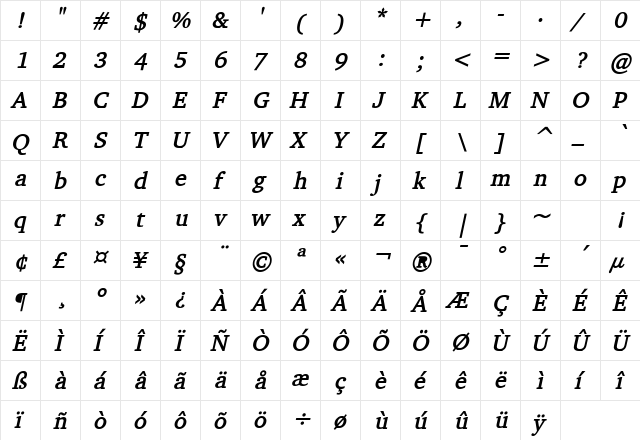
Challenge Bold Italic
Design Context for Challenge Typeface
Challenge is a composed and adaptable typeface that performs quietly and consistently across a wide range of design contexts. The dynamic lean of this cut emphasises speed and emphasis in any layout. Its bold stroke weight gives it real presence on the page.
Pro Tip: Try Challenge for annotation and caption copy alongside an upright companion — the contrast in angle creates a dynamic but ordered typographic system.